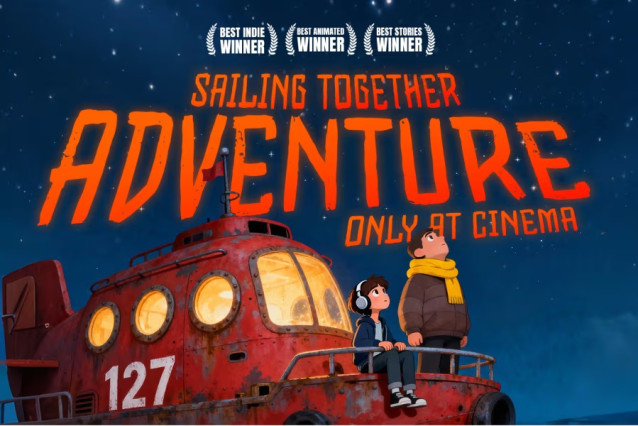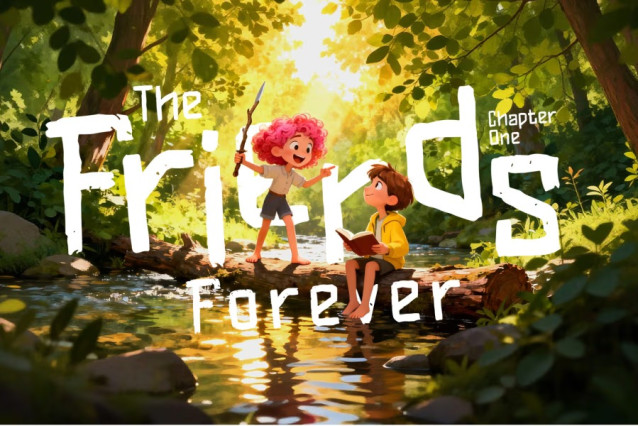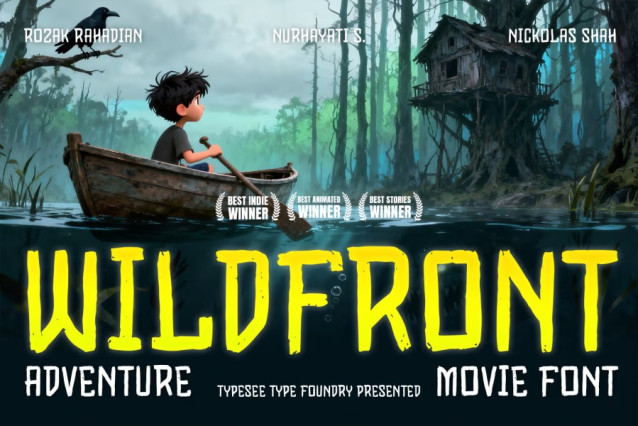
Wildfront Font
Wildfront Font is an expressive adventure font inspired by indie animation and cinematic journeys. Its handmade brush texture gives an organic, natural feel that captures the thrill of exploration and discovery. Each letter flows with raw energy—ideal for movie posters, game titles, storybook covers, or branding that evokes wilderness, courage, and friendship. Wildfront bridges cinematic style with emotional warmth, making it suitable for creative projects centered on adventure, childhood, and imagination